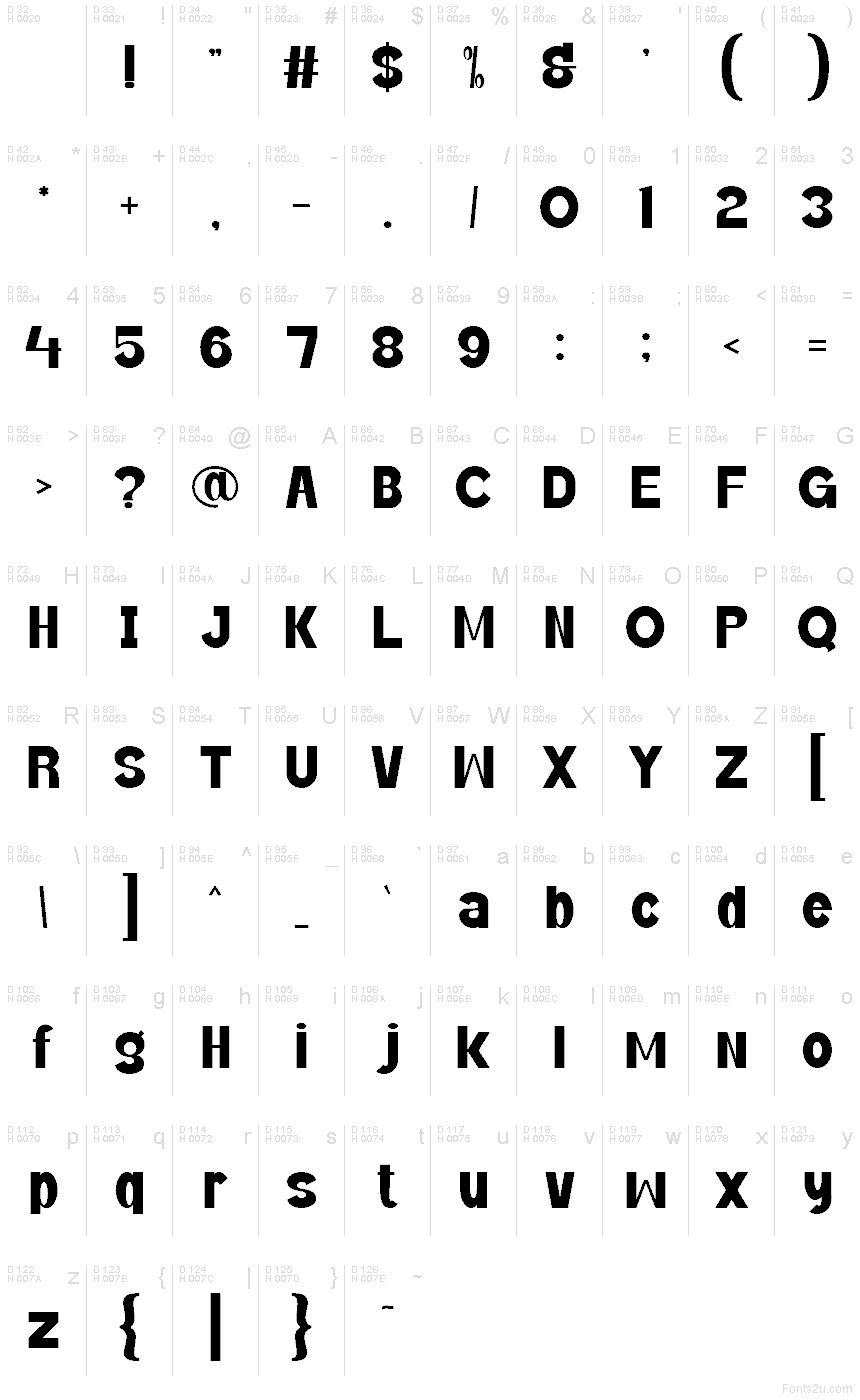
Gaseno Bold
Gaseno Bold font by Gilang Ternadho is a free bold sans serif typeface with a punchy, almost inky weight and a quirky mix of soft and sharp shapes. Letters swell into rounded curves, then snap into straight edges, giving the Gaseno family a chunky, hand-cut feel that still reads clean and modern. The spacing is tight and energetic, so words lock together like a logo right out of the box.
Using Gaseno Bold, you get a headline voice that feels both friendly and assertive—great for posters, packaging, badges, thumbnails, event graphics, and bold branding wordmarks. This free font shines when you scale it up and keep copy short, letting those thick strokes and playful forms do the talking. Pair Gaseno Bold with a simple, neutral sans for body text to keep layouts readable while the Gaseno name steals the spotlight.